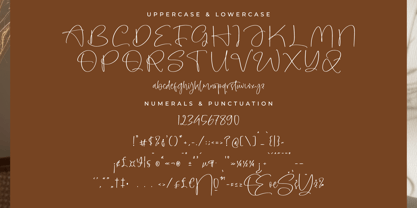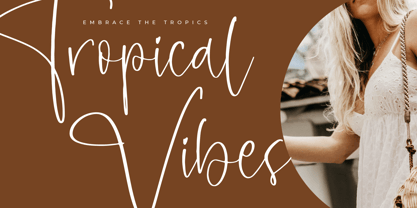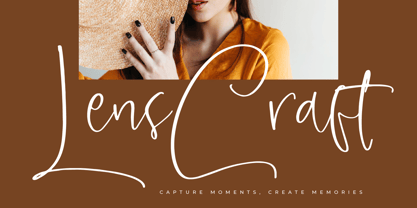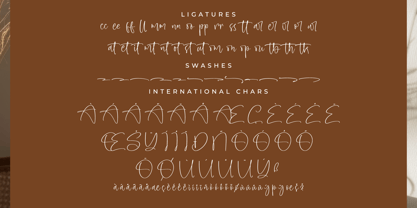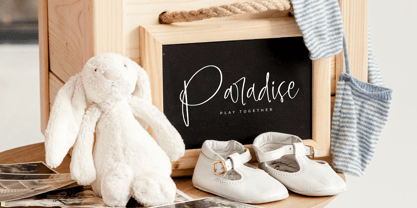
Amberony
von Letterena Studios
Die Schriftfamilie Amberony wurde von Heru Utama Putra entworfen und von Letterena Studios veröffentlicht. Amberony enthält 2 Stile und Familienpaketoptionen.
Amberony is a dazzling script font exuding elegance and sophistication. Its graceful strokes and intricate details captivate the eye, making it perfect for wedding invitations, branding, and elegant designs. With its timeless appeal and delicate curves, this font adds a touch of luxury to any project.